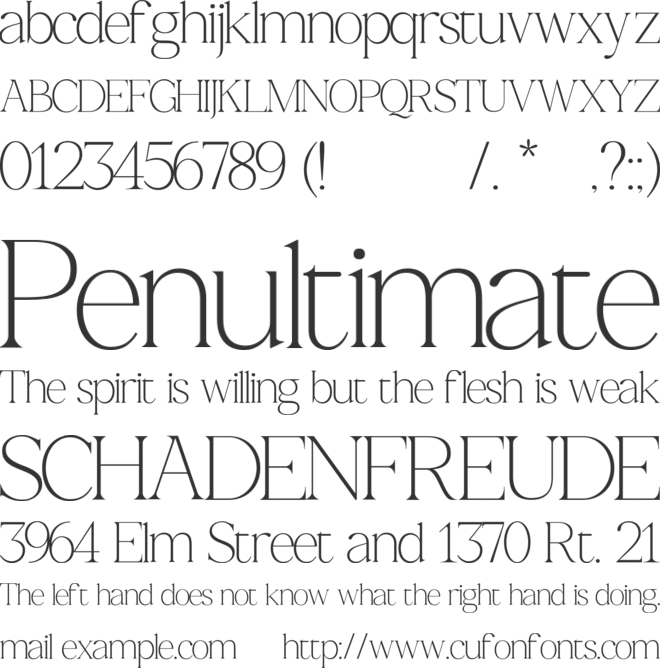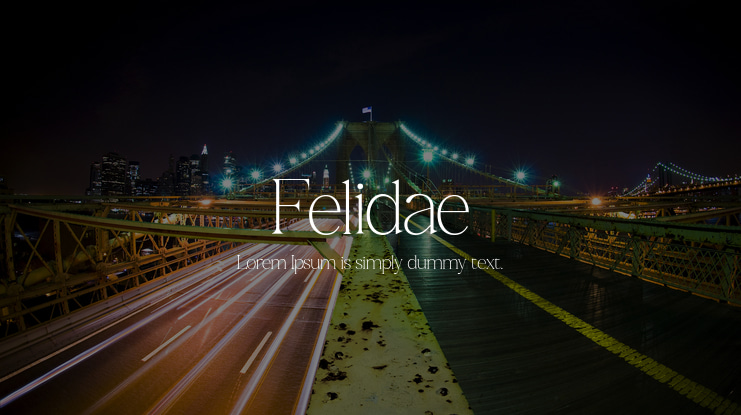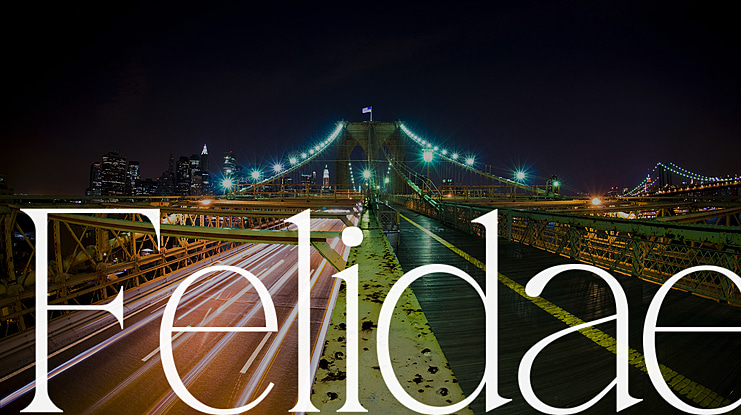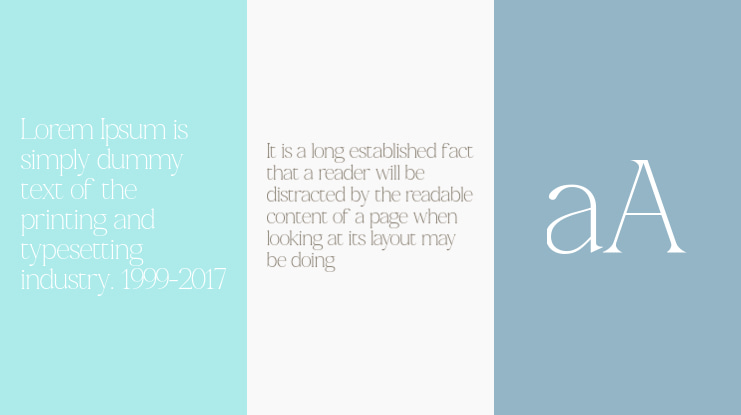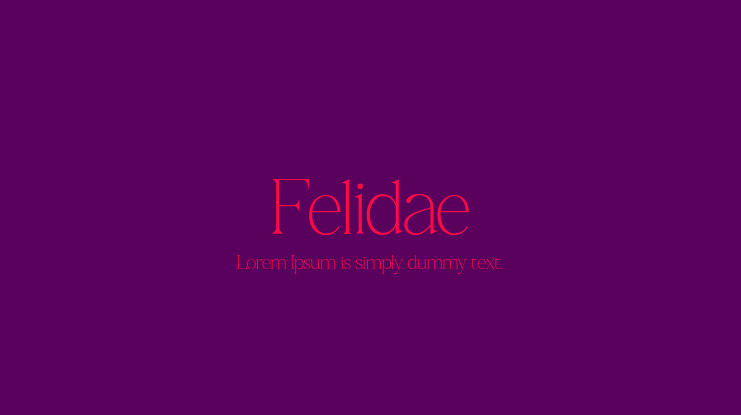
Felidae Font
It’s an elegant, modern and classy serif typeface with fashionable touch. The font contains additional symbols inspired by the shapes of a lion’s mane fluttering in the wind. So users can choose to make variations or designs on the letters easily. very suitable for use in various applications including brand identity, invitations, magazines, logo designs and others.